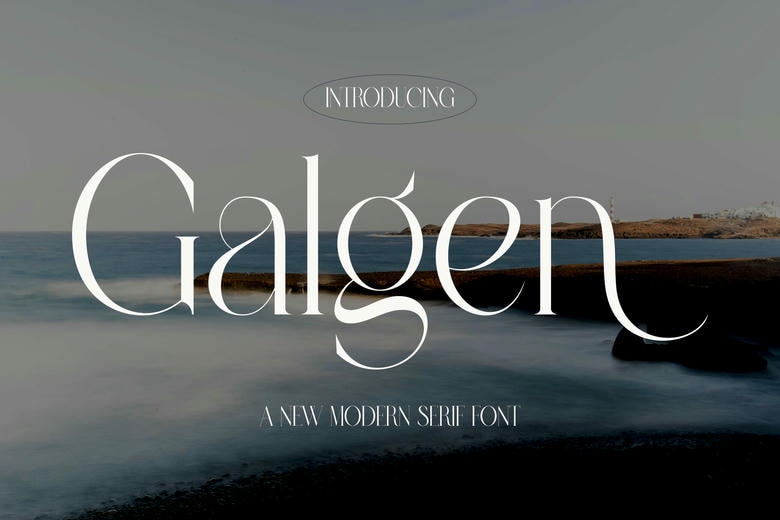
Galgen Font
Galgen is an elegant ligature serif modern font with an alluring combination of fresh blooms and old world elegance. With its bold but refined ligatures, Galgen is a sophisticated (and feminine) typeface. Perfect for upscale designs, whether they are for florals, fashion, or high-end branding, Galgen is a perfect combination of the charm of classic serif styles and a modern twist.
Every letter is intentional, with an air of soft and graceful presence that raises any project that it touches. Bring some fineness and grace to your work with Galgen . Let this font breath elegance into your designs, and watch them flourish with style and character.
Galgen Serif Font